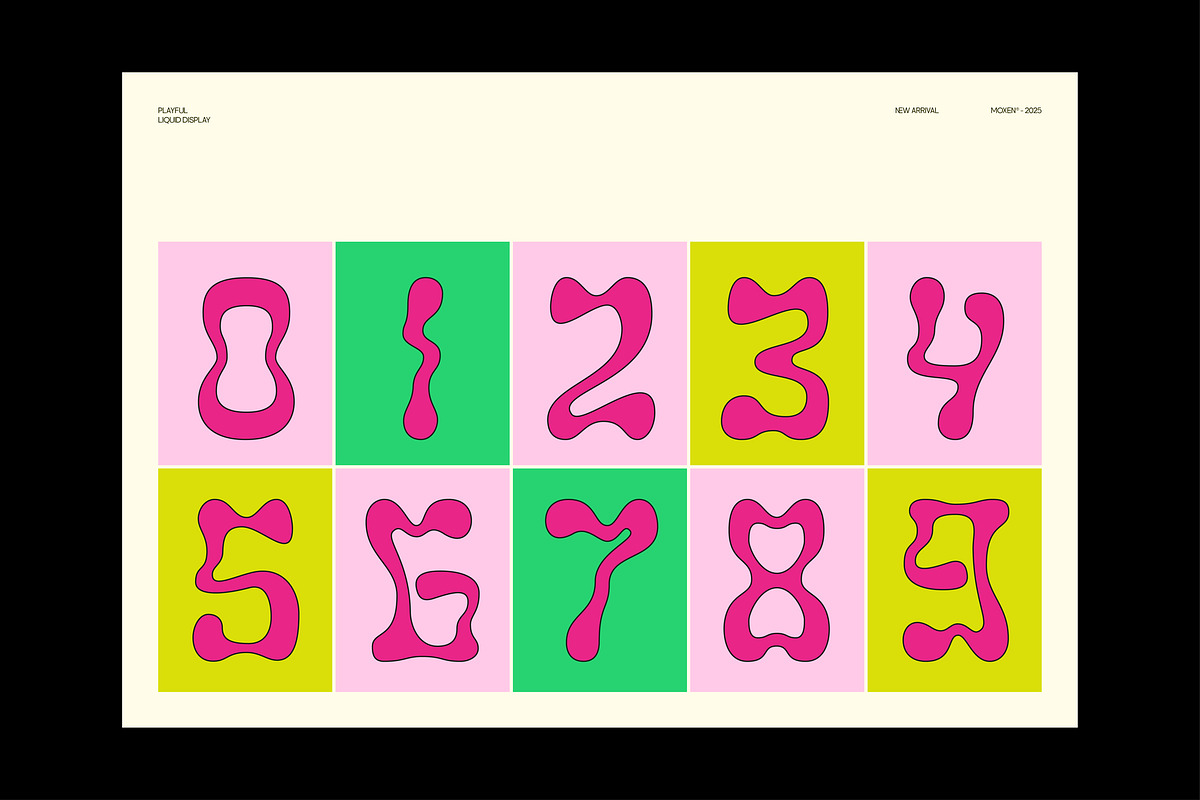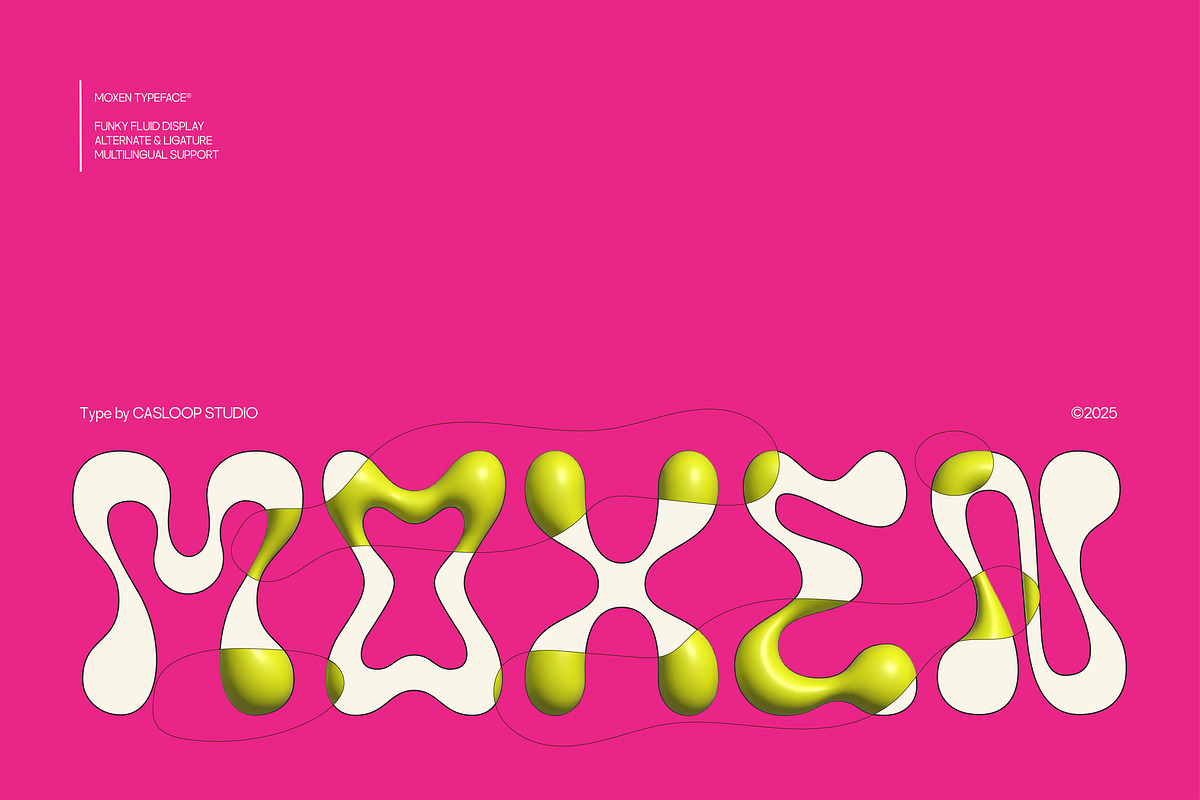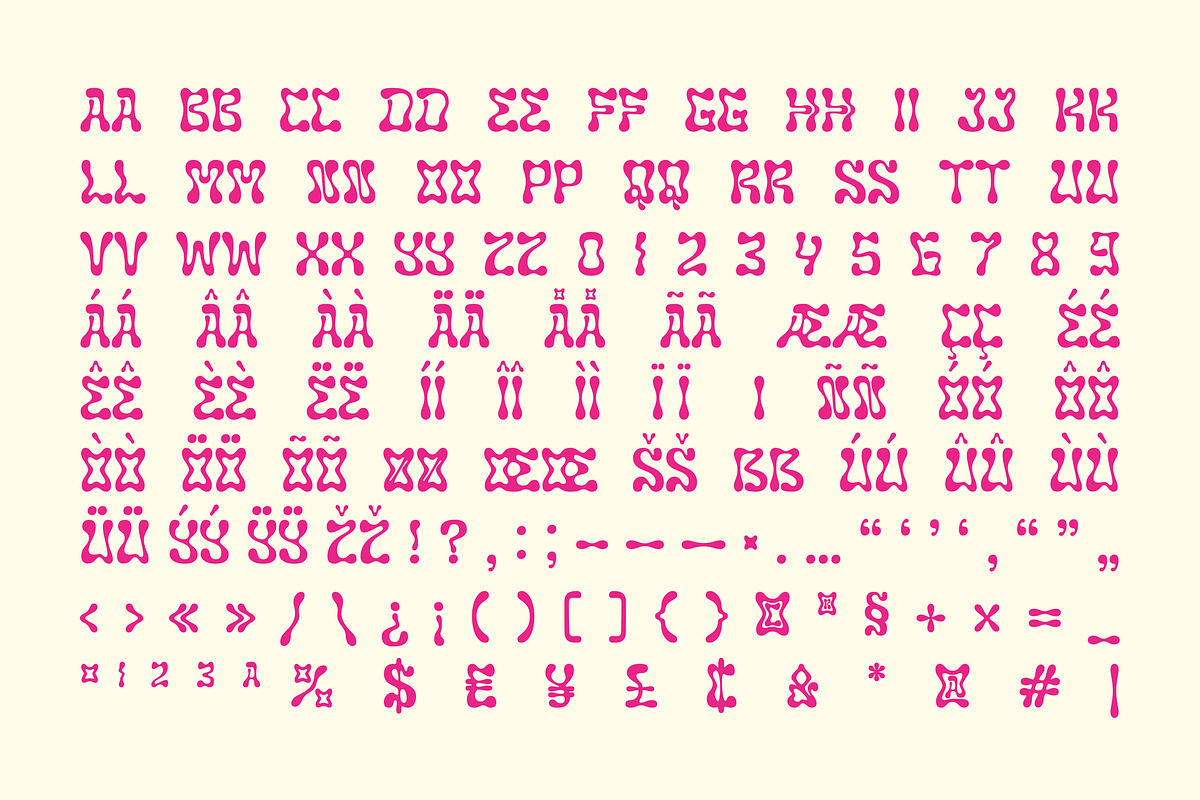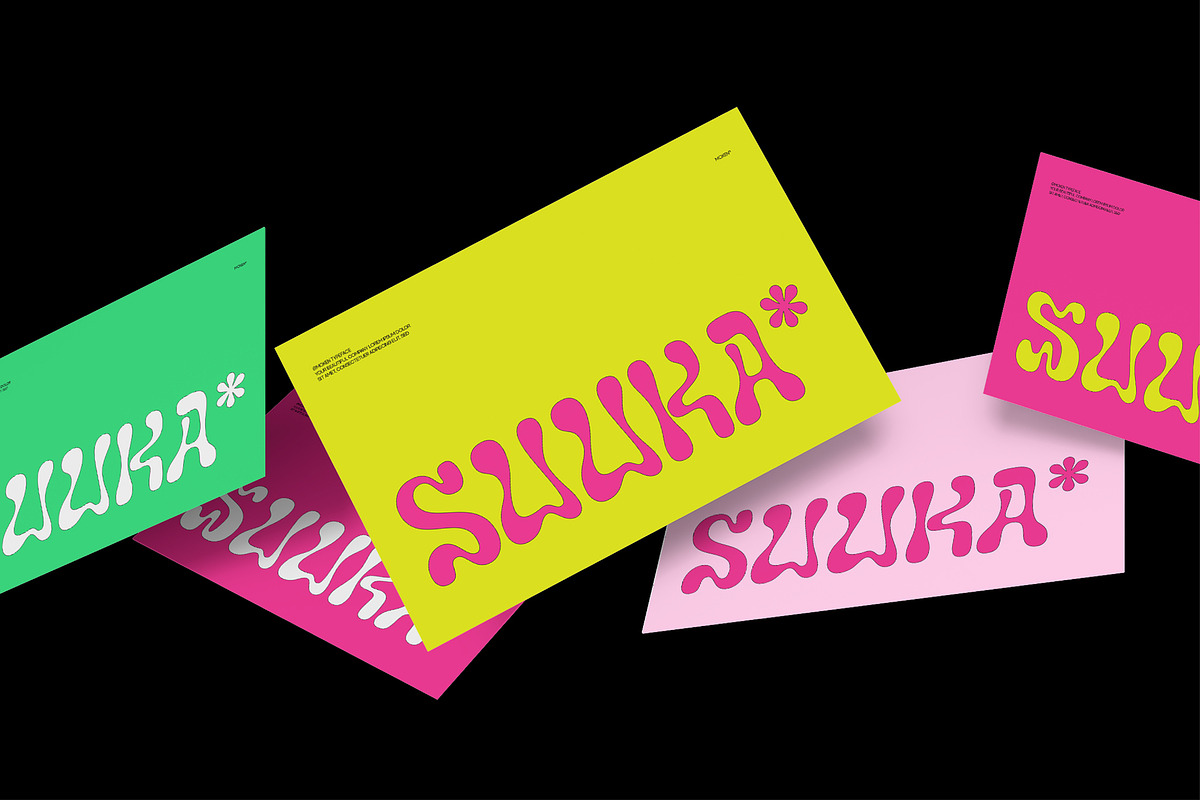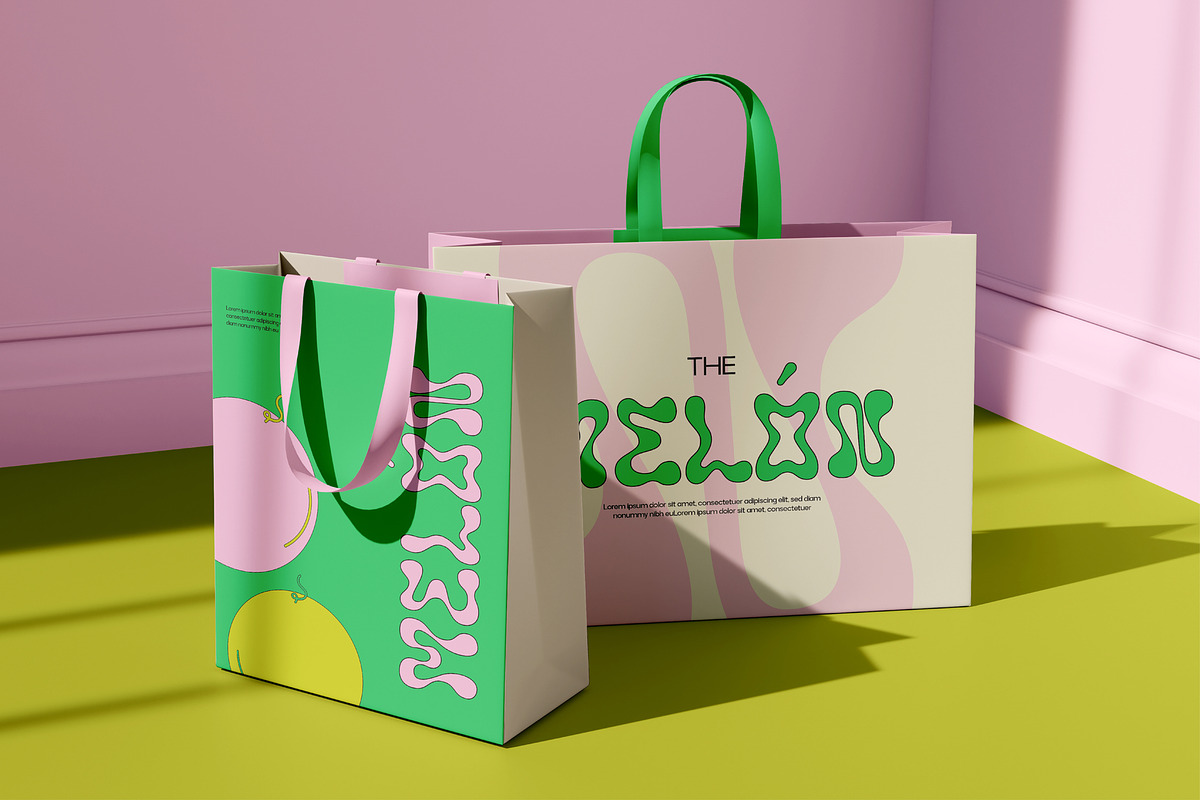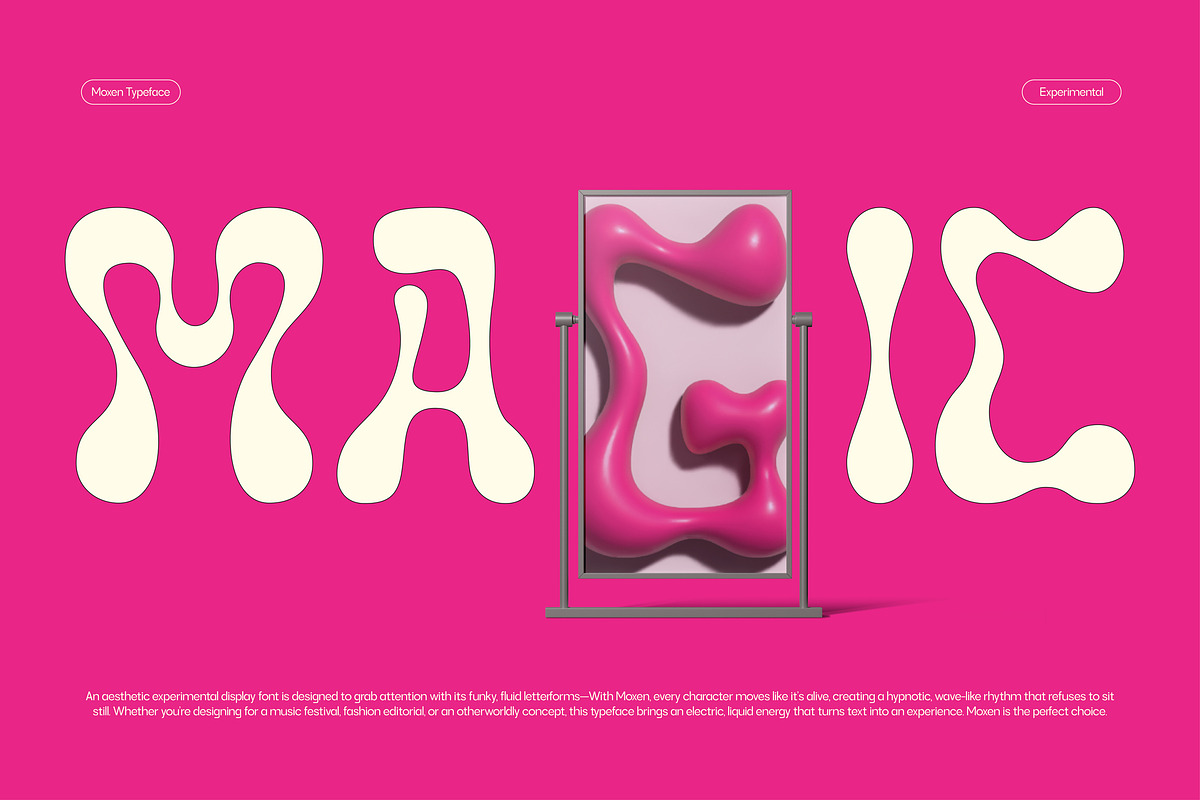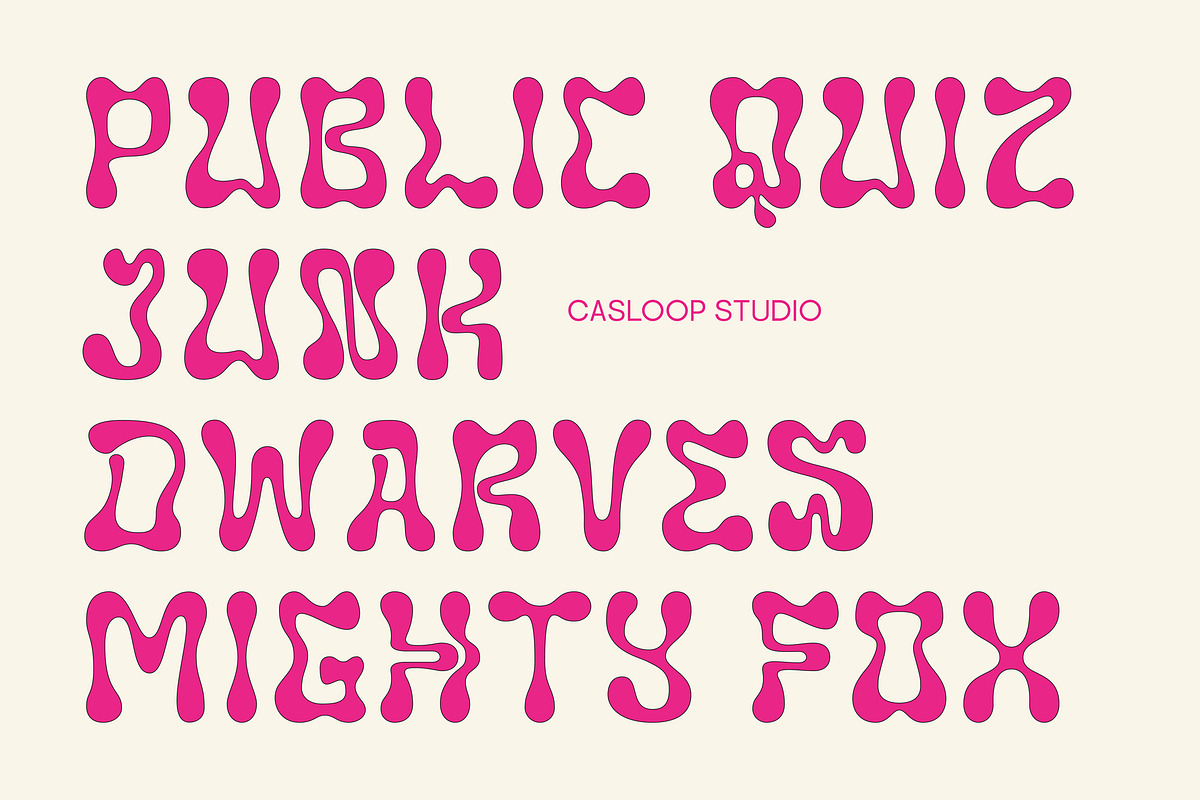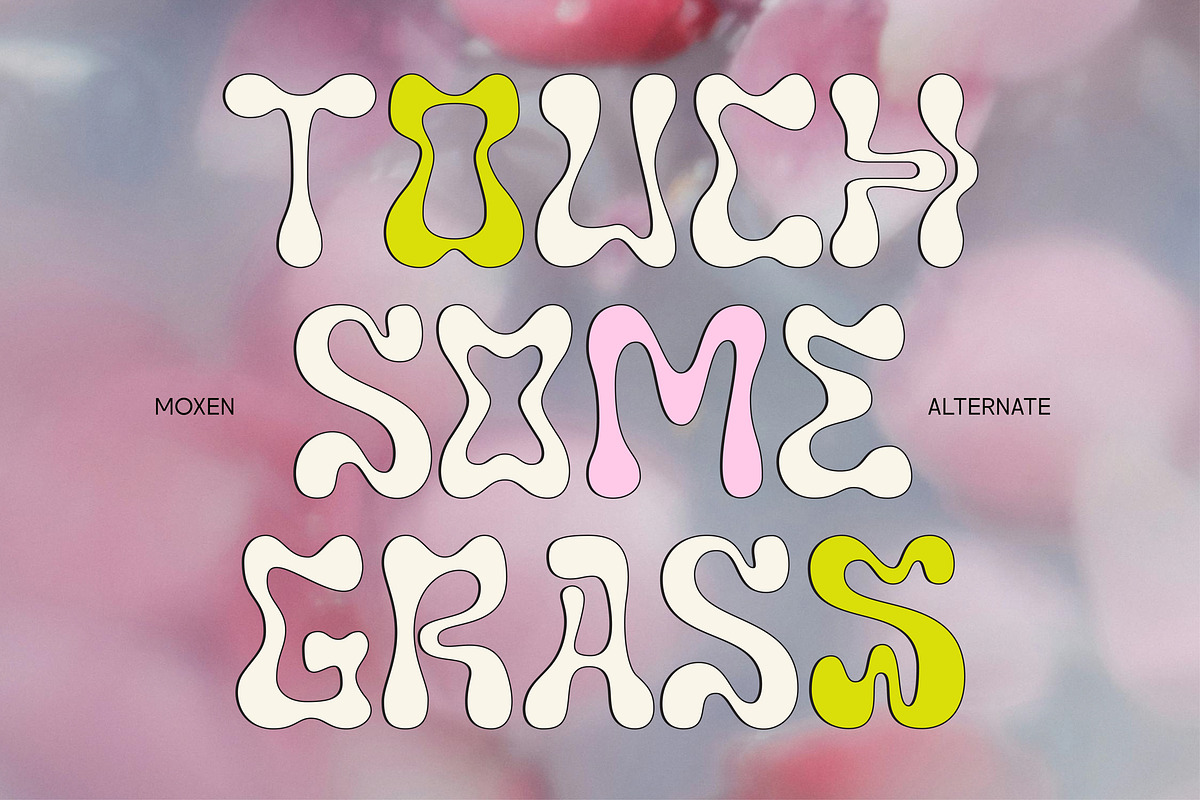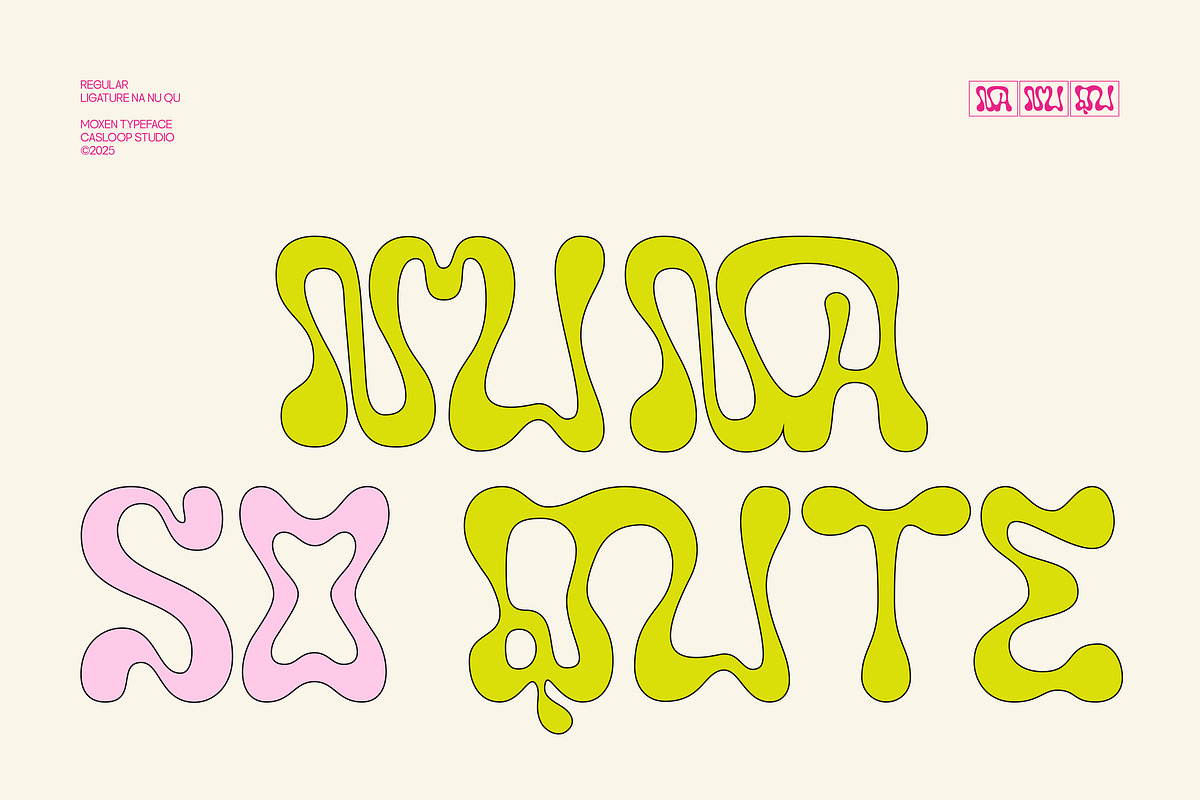
Moxen - Liquid Wavy Bubble Font
Moxen Typeface — The Playful, Liquid-Inspired Display Font Moxen is an eccentric and experimental display typeface that captures the fluidity of creativity. Designed for modern-day creators who seek to make a statement, Moxen offers hypnotic, wave-like letterforms that bring a unique edge to your designs. Its organic, liquid-inspired shapes deliver an artistic balance of fun and sophistication, making it ideal for bold design projects across branding, editorial, and digital media.
Key Features of Moxen -Fluid & Funky Shapes: The wavy, free-flowing forms make Moxen a standout choice for experimental and bold designs. -Alternates & Ligatures: Packed with stylistic alternates and custom ligatures to give you endless creative possibilities. -Multilingual Support: Supports a wide range of languages, including accented characters, ensuring global usability. -Versatile Formats: Comes in OTF, TTF, WOFF, and WOFF2 formats, making it compatible with all major design tools. -Attention-Grabbing Design: Bold, fluid shapes that are perfect for creating impactful headlines and artistic visuals.
Best Applications -Branding & Packaging: Add a playful, distinctive edge to your logos and product designs. -Posters & Event Graphics: Create eye-catching visuals for campaigns, music festivals, or creative events. -Social Media Content: Make your posts pop and keep your audience engaged with Moxen’s lively energy. -Editorial Design: Elevate your magazine layouts, zines, or creative spreads with its funky aesthetic.
Moxen is designed to make your work unforgettable. This liquid-inspired display typeface combines bold, organic letterforms with a playful and experimental design, creating a visual rhythm that feels alive. Whether it’s a bold headline, a quirky poster, or branding that stands out, Moxen brings fun, energy, and character to every project. Perfect for branding, packaging design, posters, and social media content, Moxen’s fluid shapes, stylistic alternates, and custom ligatures make it a versatile choice for high-impact visuals. Its multilingual support ensures your designs resonate with a global audience, while its energetic and vibrant aesthetic transforms your projects into unforgettable visual experiences. Whether you’re crafting music festival graphics, editorial layouts, or merchandise designs, Moxen’s funky, experimental charm will add a touch of sophistication and creativity to your work. This typeface is perfect for creators who want to make bold statements and ensure their designs are anything but ordinary.